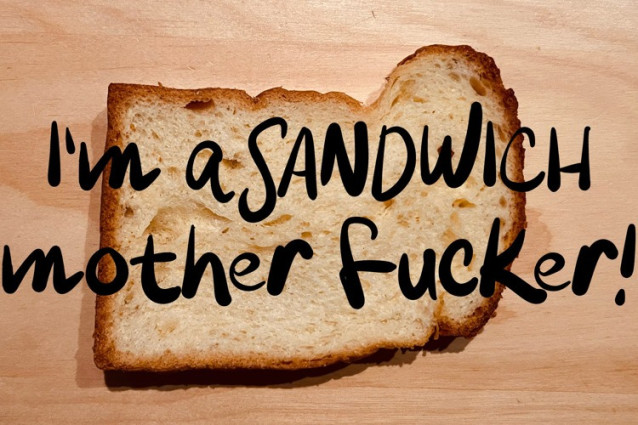
Cuckoo Font It would be a perfect choice to design posters, affiches, logos, t-shirt and magazine prints, eye-pleasing typographic designs and more.
Cuckoo Font